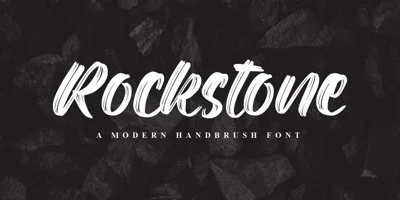
Rockstone Font
Rockstone Font is ideal for rock climbing gyms, outdoor adventure gear, stone masonry companies, geological museums, mountain expedition outfitters, heavy metal music venues, rugged outdoor equipment, adventure tourism marketing, rock formation studies, quarry operations branding, extreme sports promotions, and authentic outdoor adventure communications.
This font is exciting because it captures the primal strength and geological permanence of ancient rock formations, featuring powerfully solid letterforms that stand with the same unwavering stability and natural authority found in massive stone cliffs that have weathered millions of years of storms, earthquakes, and erosion while maintaining their essential character and providing the foundation for entire mountain ranges and the adventurous spirit that drives rock climbers to scale vertical walls of granite and limestone. The monumentally crafted character design embodies both the geological forces that create solid rock and the human determination required to conquer stone challenges, creating typography that feels both naturally powerful and adventurously inspiring. Each letter demonstrates the kind of rock-solid reliability and natural strength that transforms ordinary text into declarations worthy of the world's most challenging climbing routes and geological wonders.
The Rockstone Font family includes regular and bold weights with complete character sets featuring geological numerals, solid punctuation marks, and textural elements inspired by rock formations, climbing equipment, mountain landscapes, and natural stone patterns. Advanced versions may offer additional stylistic variants with enhanced stone textures, alternate characters that reflect natural rock variations, and rugged ornaments that celebrate the heritage of geological exploration and adventure climbing traditions.
Whether you're developing outdoor adventure branding, creating geological educational materials, or designing extreme sports content, Rockstone Font provides the geological authenticity and adventure strength your project needs to connect with audiences who appreciate the raw power of natural rock formations and the challenging adventures that come with conquering stone mountains and vertical cliff faces. This typeface transforms ordinary text into solid expressions that honor both the permanence of geological formations and the adventurous spirit of those who challenge themselves against nature's most formidable stone obstacles. The font's geological character makes it essential for outdoor adventure companies and organizations that celebrate rock climbing and geological exploration. Adventure enthusiasts and geological education advocates will appreciate how this font brings authentic stone mountain tradition to their work with its genuinely solid and naturally powerful character that stands like stone.